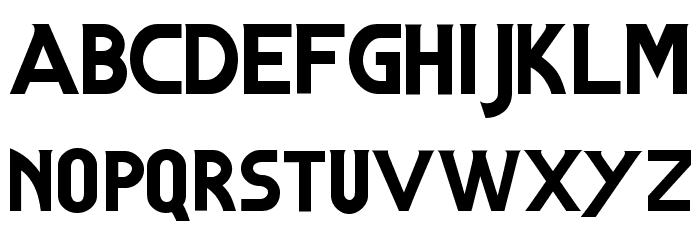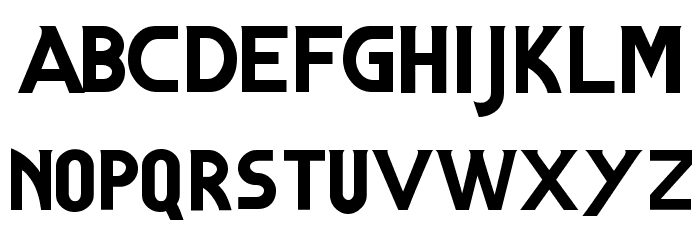
junglelaw Font
junglelaw Description
This font features a bold and assertive style with strong geometric shapes and sharp angles. The uppercase letters are uniform in height, creating a cohesive and structured appearance. The strokes are thick and consistent, providing a sense of stability and strength. The design is modern and slightly aggressive, making it suitable for impactful headlines or branding that requires a commanding presence. The characters are evenly spaced, ensuring readability while maintaining a compact look. The overall aesthetic is clean and contemporary, with a touch of edginess that sets it apart from more traditional fonts.
A bold, geometric font with sharp angles and a modern, assertive style from Uncategorized fonts.
- Proposed Projects: Ideal for branding, headlines, posters, and any project needing a strong, modern impact.